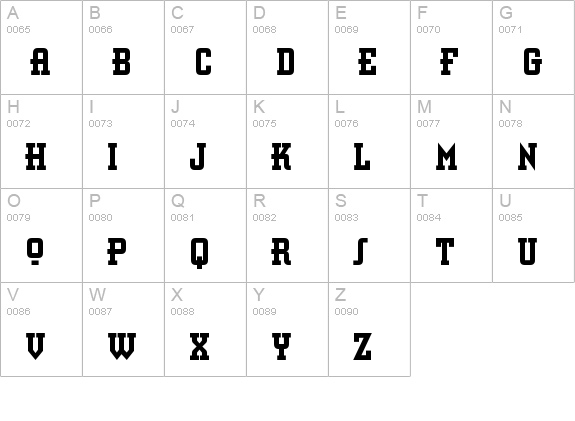
Retro Bold Condensed Plain Font Details
Retro Bold Condensed Plain is a strong, high-contrast, condensed-width variant in the Retro typeface family \xE2\x80\x94 well suited to headlines, attention-grabbing titles, and strong calls-to-action.
Introducing Retro Bold Condensed Plain font, a timeless fusion of classic elegance and modern boldness. This striking typeface effortlessly captures the essence of vintage design while infusing it with a contemporary edge. Its condensed form adds a touch of sleekness and sophistication, making it perfect for projects that require a strong visual impact. With its clean lines and strong presence, Retro Bold Condensed Plain font is versatile and adaptable, suitable for a wide range of design applications. Whether it's used for logos, headlines, posters, or branding materials, this font demands attention and leaves a lasting impression. What's even better is that Retro Bold Condensed Plain font is available for free download at FontsMarket.com. You can now easily enhance your creative projects without breaking the bank. This font is a true gem for graphic designers, artists, and anyone seeking to add a touch of retro flair to their work. Downloading Retro Bold Condensed Plain font is quick and hassle-free, allowing you to instantly elevate your designs. Its bold strokes and condensed nature lend themselves to creating impactful and eye-catching compositions, making it a must-have in your font library. So why wait? Embark on a journey into the past with Retro Bold Condensed Plain font. Embrace its timeless charm and modern versatility, and let your creativity shine. Remember, it's freely available to download at FontsMarket.com, so grab this opportunity to add a touch of retro boldness to your next project.